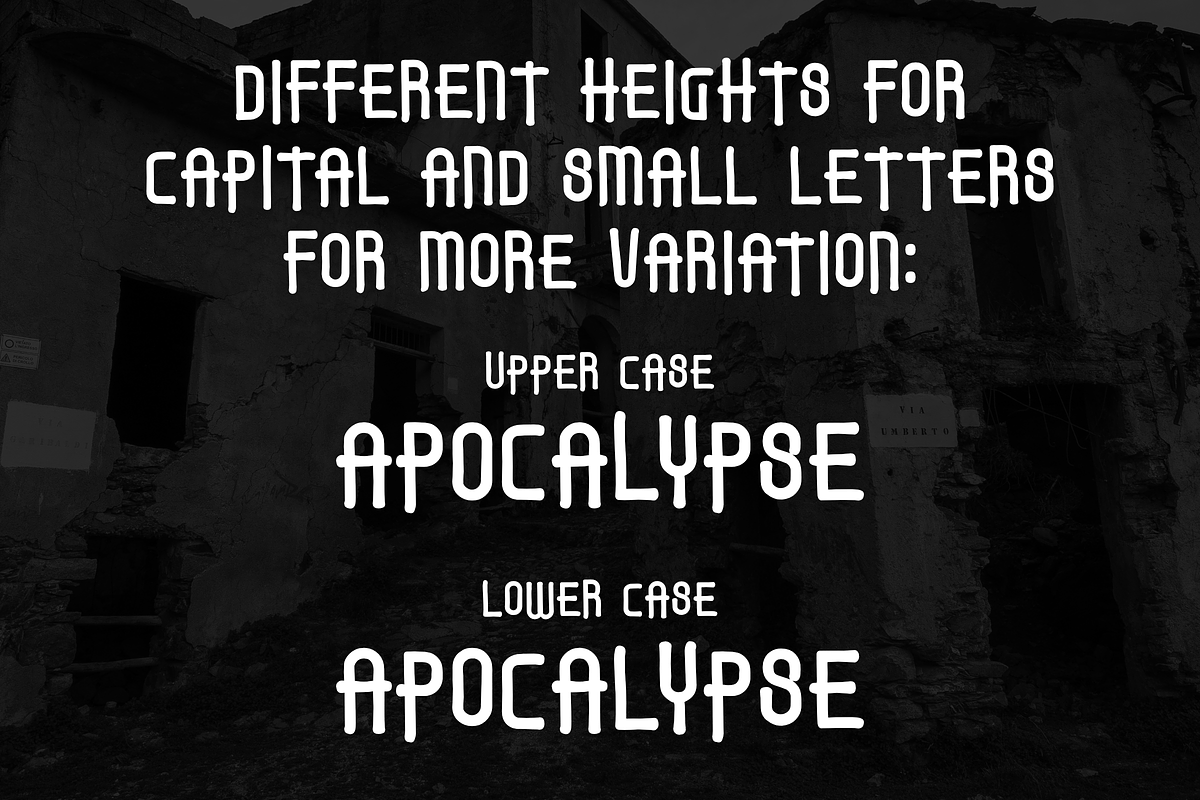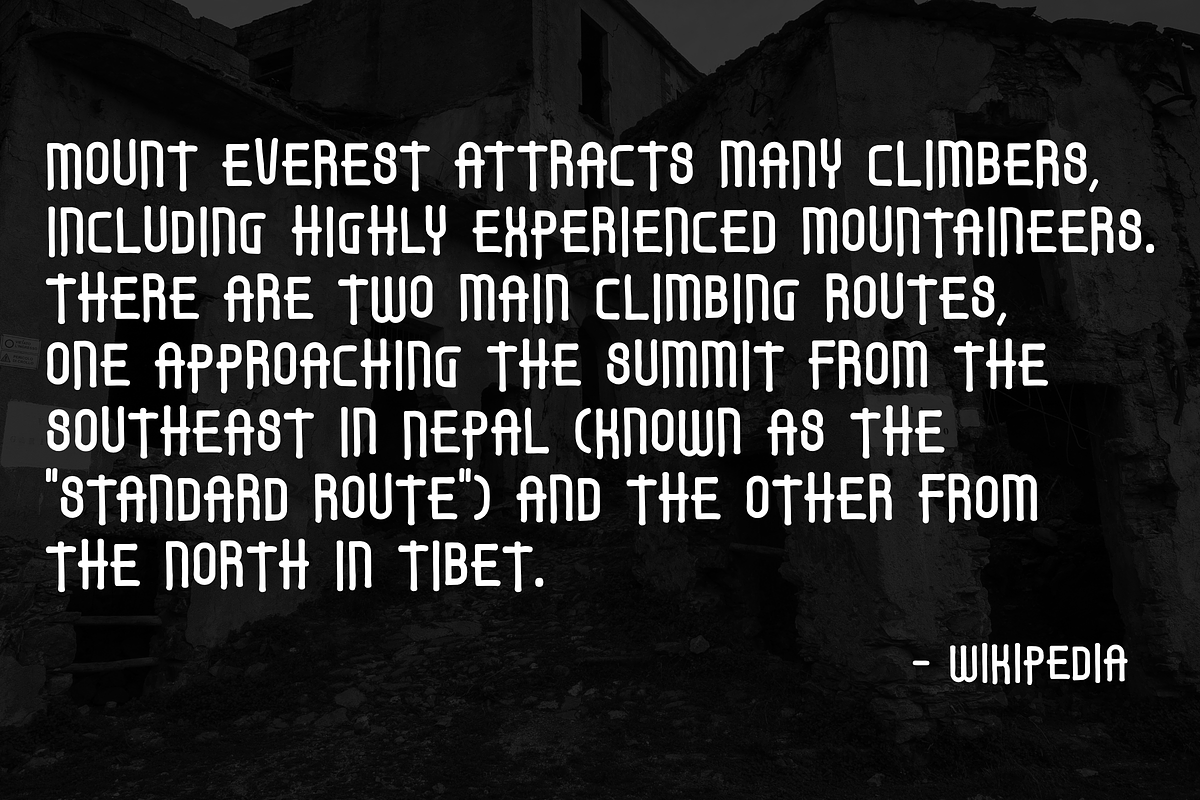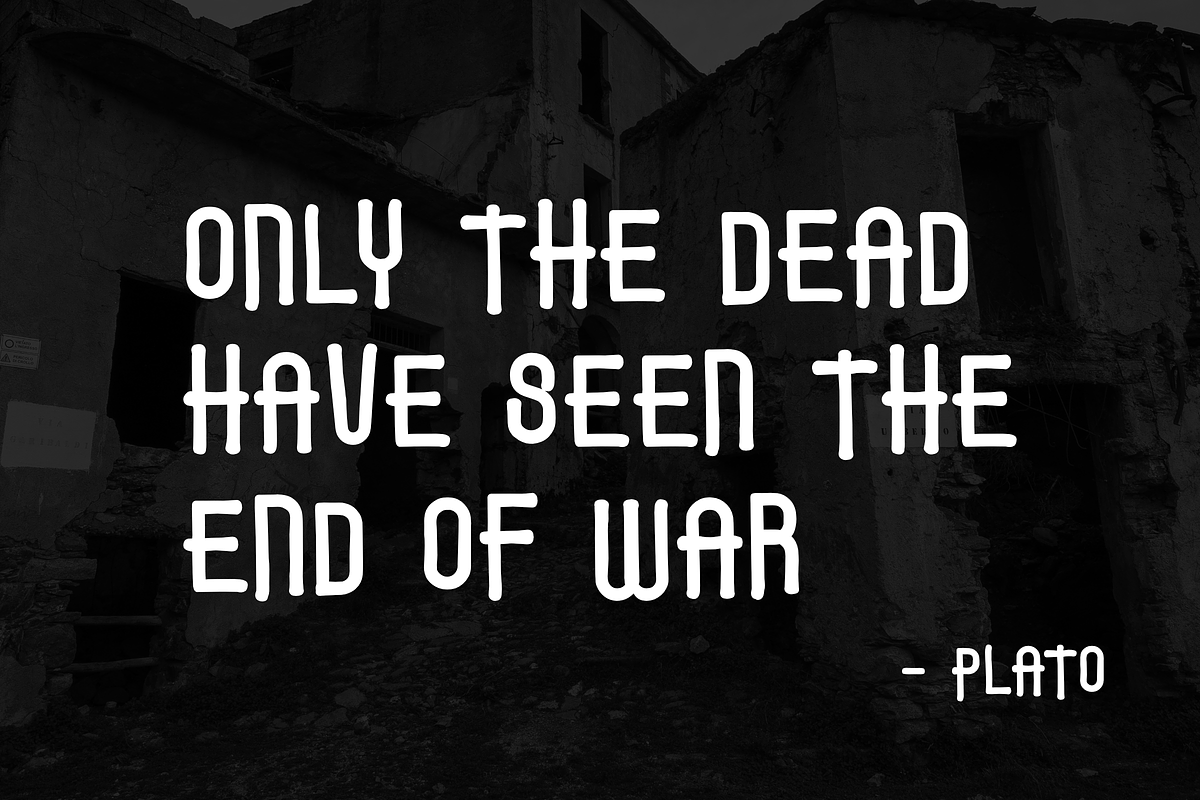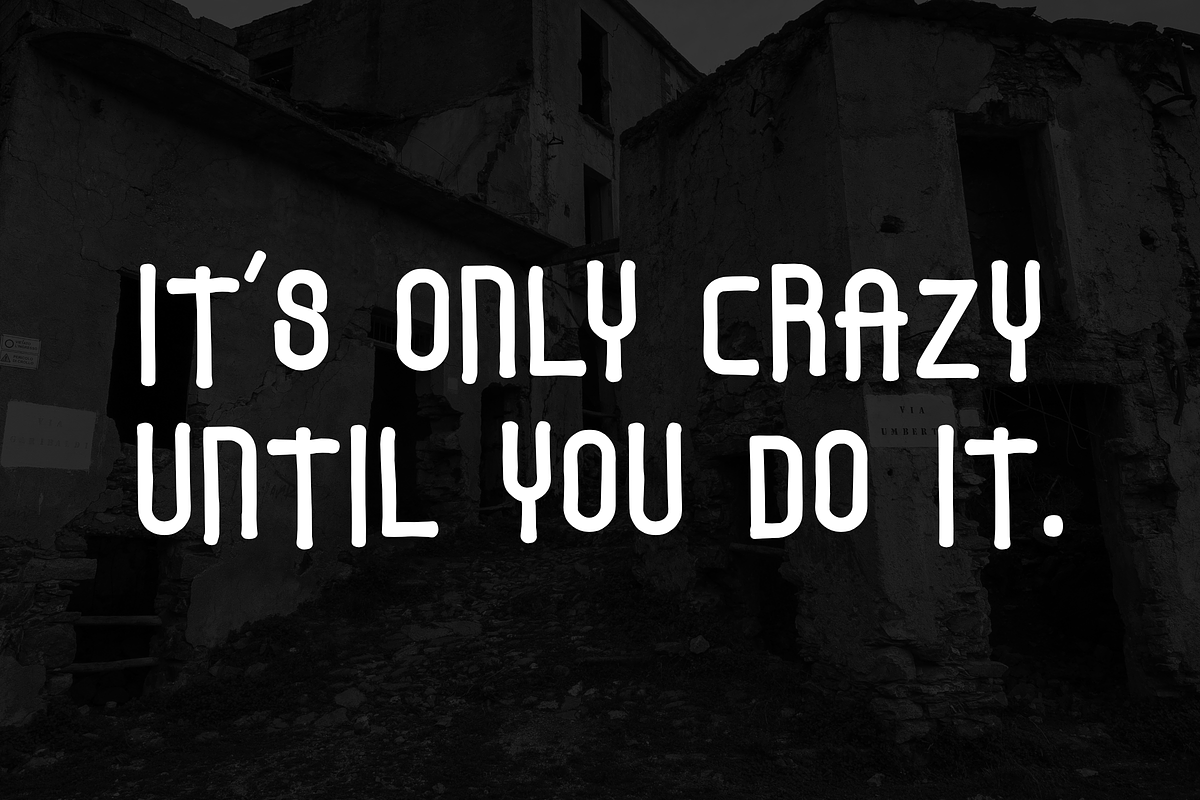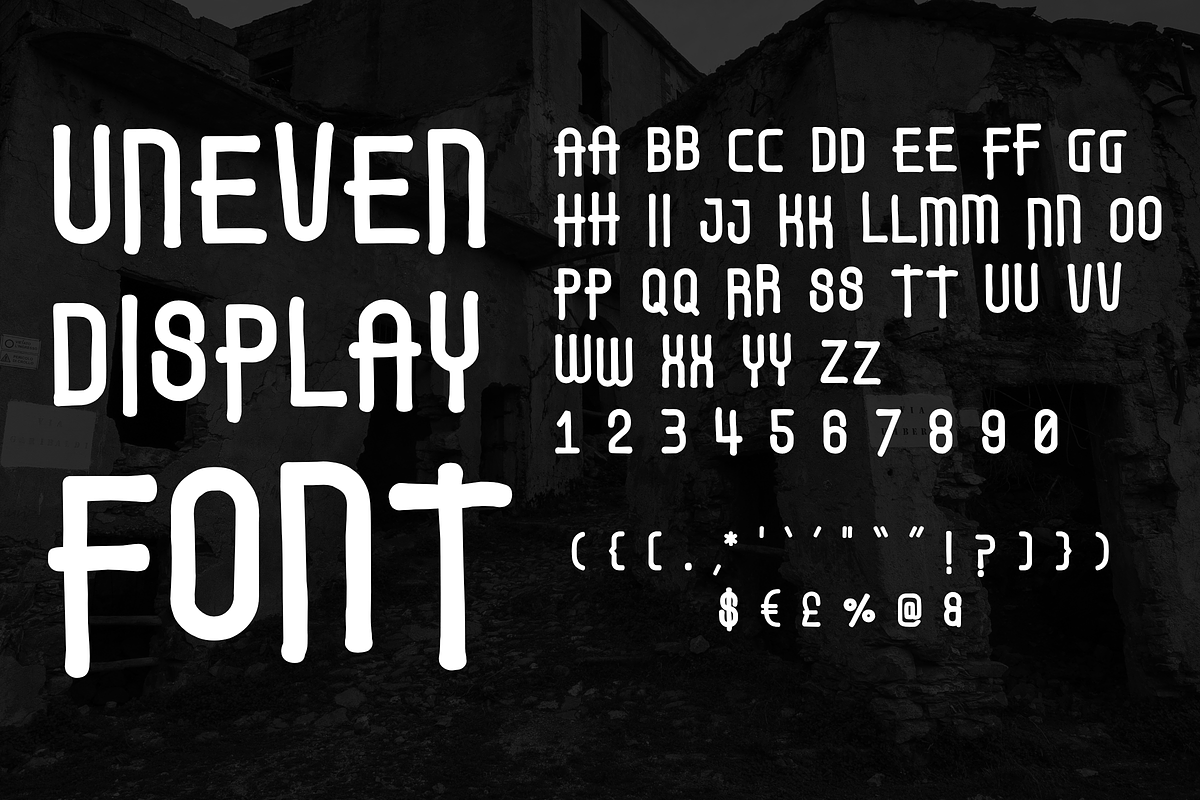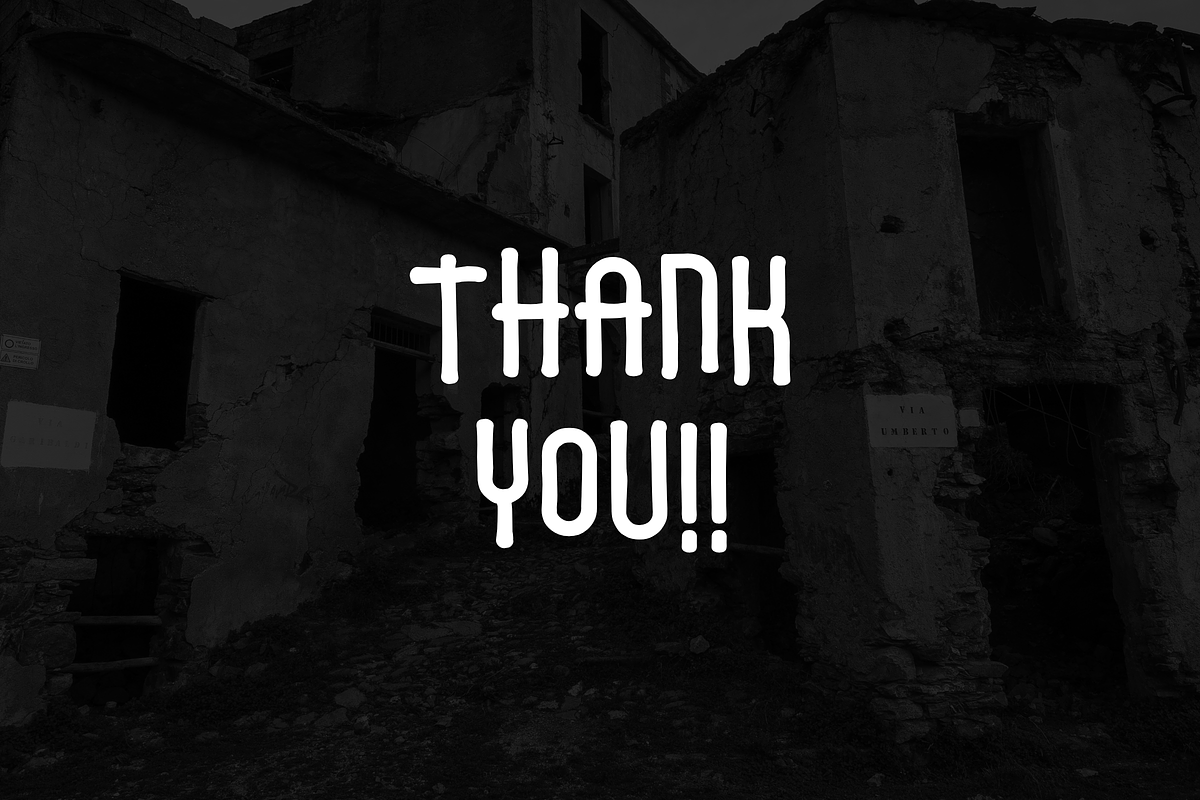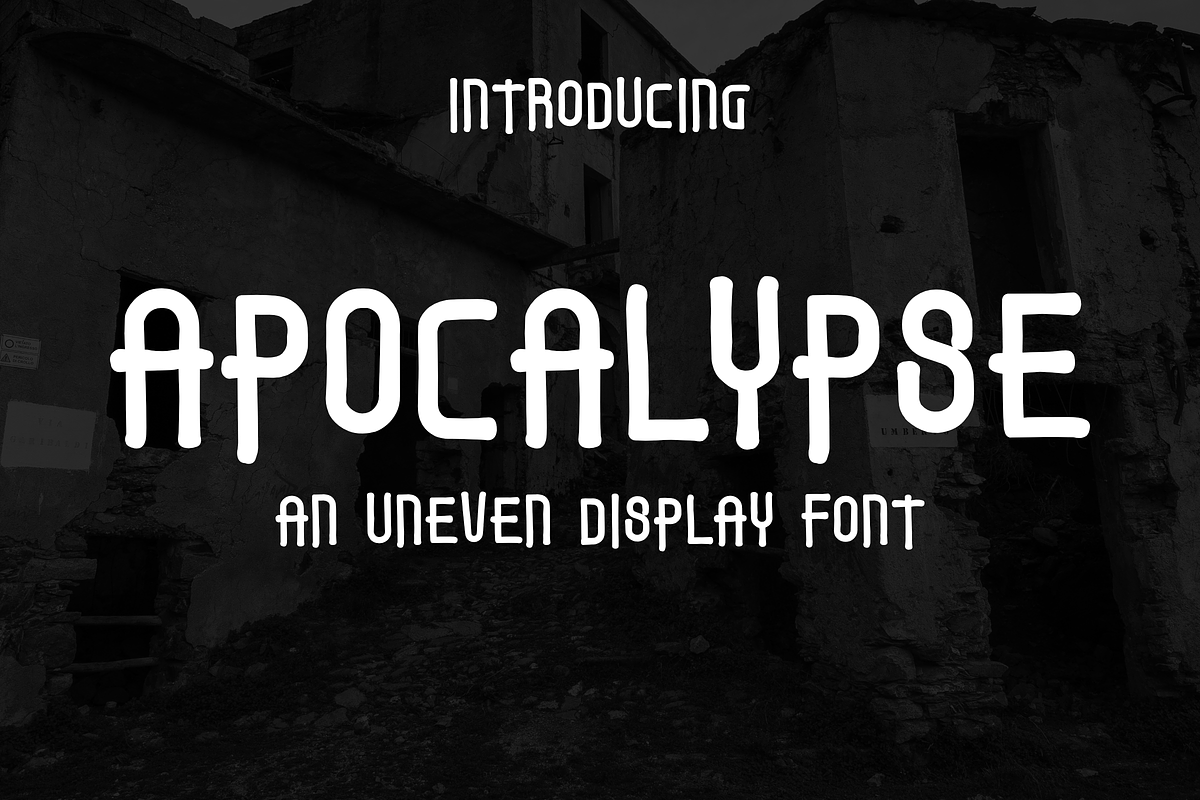
Apocalypse Bold
Embrace the raw power of typography with the Apocalypse Bold all-caps font. This typeface defies convention with its rugged, uneven strokes and crude edges. It’s a font that exudes a rebellious spirit, perfect for projects that demand an unconventional and gritty aesthetic. “Apocalypse Bold” adds a touch of chaos and individuality to your designs, making a bold statement that breaks free from the norm.